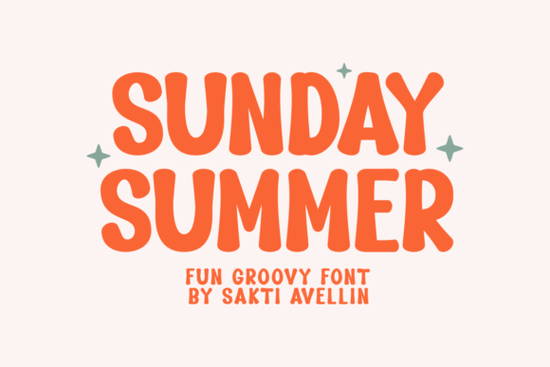
If you've been scrolling through retro fonts and feeling like nothing quite captures that carefree, sunny-day mood, the Sunday Summer font might be exactly what you need. It's a handcrafted retro-style typeface designed to bring warmth and playfulness to both physical and digital projects. Whether you're designing stickers, coming up with new t-shirt ideas, or putting together party invitations, this font carries a vintage charm that feels genuinely nostalgic.
What Makes Sunday Summer Font Stand Out?
There's no shortage of retro fonts online, but Sunday Summer does something specific well it balances whimsy with readability. Some decorative fonts sacrifice clarity for style, but this one keeps its letterforms clean enough for short phrases, quotes, and product designs that people actually need to read.
The hand-lettered feel gives it personality without going overboard. It works across a wide range of projects:
- Sticker sheets and planner stickers
- T-shirts and tote bags
- Mugs and key chains
- Posters and wall décor
- Invitation cards and greeting cards
- Social media graphics and quote posts
If you're familiar with the playful spirit of a font like PN Lila Sits FN, you'll notice Sunday Summer shares that same approachable energy though it leans more heavily into a vintage summer aesthetic.
Who Is This Font Best For?
Sunday Summer is a strong pick for several types of creatives:
- Print-on-demand sellers looking for a font that works on physical products like apparel and drinkware
- Small business owners creating seasonal branding, packaging, or promotional materials
- Crafters and hobbyists working on DIY projects with cutting machines like Cricut or Silhouette
- Designers who need a retro hand-lettered style for client work or personal projects
It's especially useful if you sell on platforms like Etsy or Redbubble and want designs that feel warm and personal rather than stiff or corporate.
How Does It Compare to Other Display Fonts?
Fonts like Cartius bring an elegant, refined display style that works well for branding and editorial layouts. If you need something bolder with a Western edge, Western Bullhead fills that niche perfectly.
Sunday Summer is different from both. It's not trying to be elegant or edgy it's aiming for that relaxed, fun, slightly retro feeling of warm-weather weekends. Think handwritten postcards and vintage ice cream packaging.
For projects that call for a more formal or classical feel, Cinzel is a much better fit. But for anything casual, seasonal, or playful, Sunday Summer hits the mark.
What Works Best When Pairing This Font?
Sunday Summer is a display font, which means it works best as a headline or accent rather than body text. Here are a few pairing tips:
- Pair it with a simple sans-serif for body copy. Clean fonts like Montserrat or Open Sans let Sunday Summer take the spotlight without competing.
- Keep text short. This font shines on short phrases, names, and quotes not long paragraphs.
- Use it for seasonal campaigns. It pairs naturally with summer sales, beach themes, and warm-weather promotions.